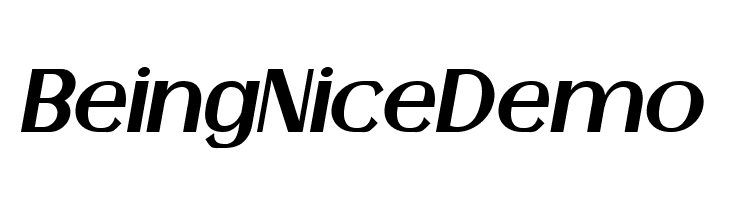
A bold, geometric font with a three-dimensional outline, ideal for impactful headlines.
Vintage-style illustrated business people icons for display use.
A dot matrix style font with a retro digital aesthetic, featuring condensed, pixelated characters.
A dot matrix style font with a retro digital display look.
A bold, geometric font with a modern, artistic style.
A lively handwritten font with fluid strokes and a playful slant.
A bold, distressed font with a grunge, hand-drawn aesthetic.
A dynamic and fluid script font with a handwritten style.
A chaotic, ink-splattered font with irregular, jagged characters.
A bold, handwritten font with a playful and dynamic style.
A bold, playful handwritten font with rounded strokes and a casual style.
A modern, geometric font with rounded edges and a futuristic style.
A cursive, handwritten-style font with smooth, flowing strokes.
A modern, elegant script font with a fluid, handwritten style.
A bold, high-contrast brush script font with an energetic and dynamic style.
A bold, brush-style script font with dynamic and expressive strokes.
A bold, geometric font with square, blocky characters.
A playful, bold font with a hand-drawn, whimsical style.
A bold, playful font with a cartoon-like style and rounded characters.
Illustrative display font featuring business people in office scenes.
Business-themed pictogram font with office and teamwork silhouettes.
A graffiti-inspired font with bold, angular strokes and a dynamic, energetic feel.
A bold, hand-painted style font with textured, irregular characters.
A bold, italicized 3D font with sharp angles and a dynamic style.
A bold, 3D font with sharp edges and a striking shadow effect.
A bold, dramatic font with tall, narrow characters and sharp angles.
A bold, italicized font with a dynamic slant and high contrast, perfect for impactful headlines.
A bold, narrow font with sharp serifs and a vintage Western style.
A bold, italic font with sharp angles and exaggerated serifs, exuding energy and motion.
Bold, italicized font with a 3D chrome effect and tight spacing.